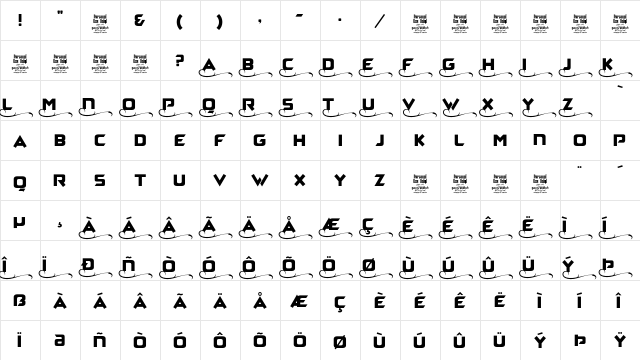
Zagga Personal Use Regular
| Foundry | Tama Putra |
| Designer | Tama Putra |
Design Context for Zagga Personal Use Typeface
Zagga Personal Use offers clean, dependable letterforms without strong stylistic allegiance, making it a practical choice for designers who need flexibility.